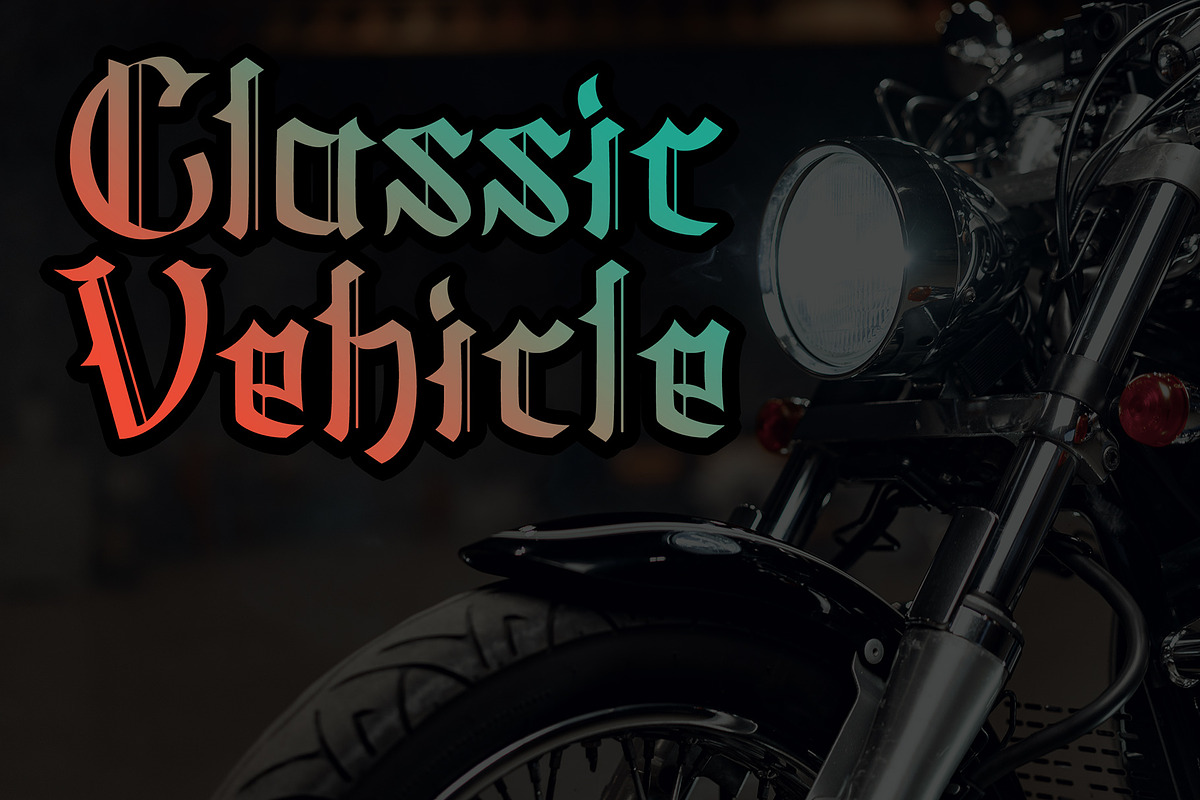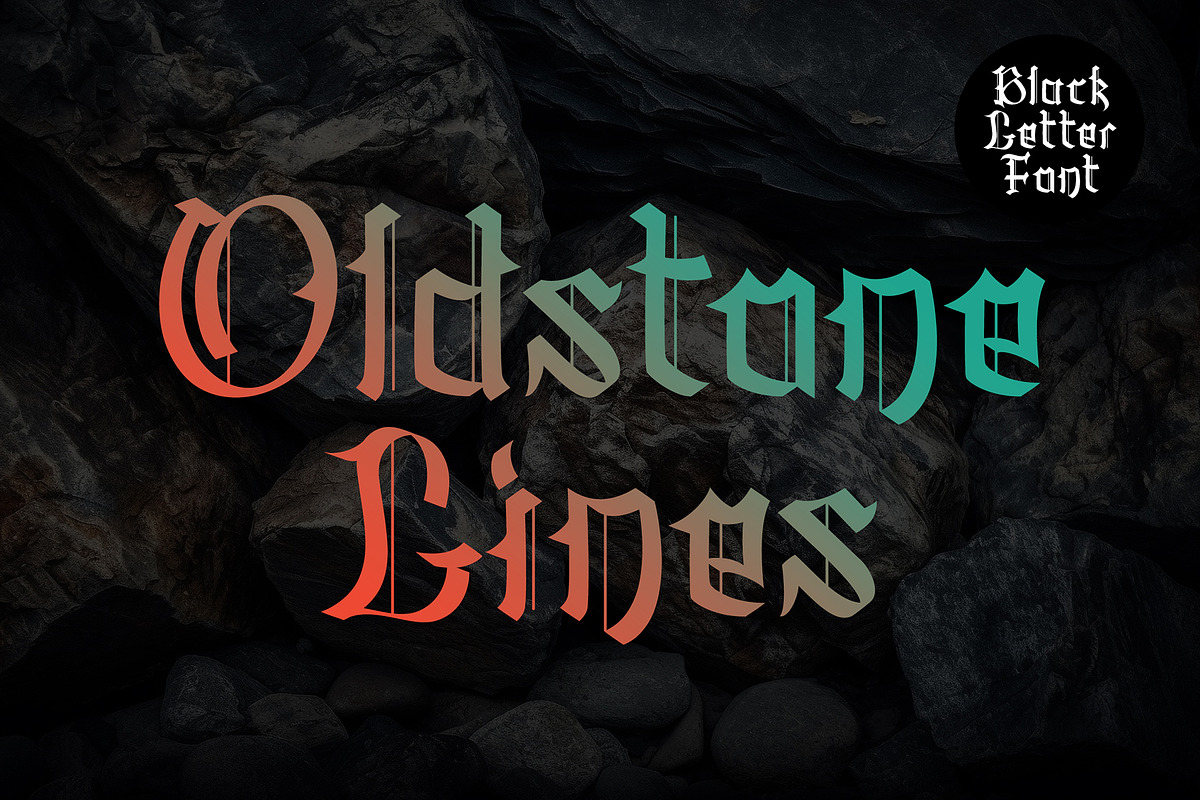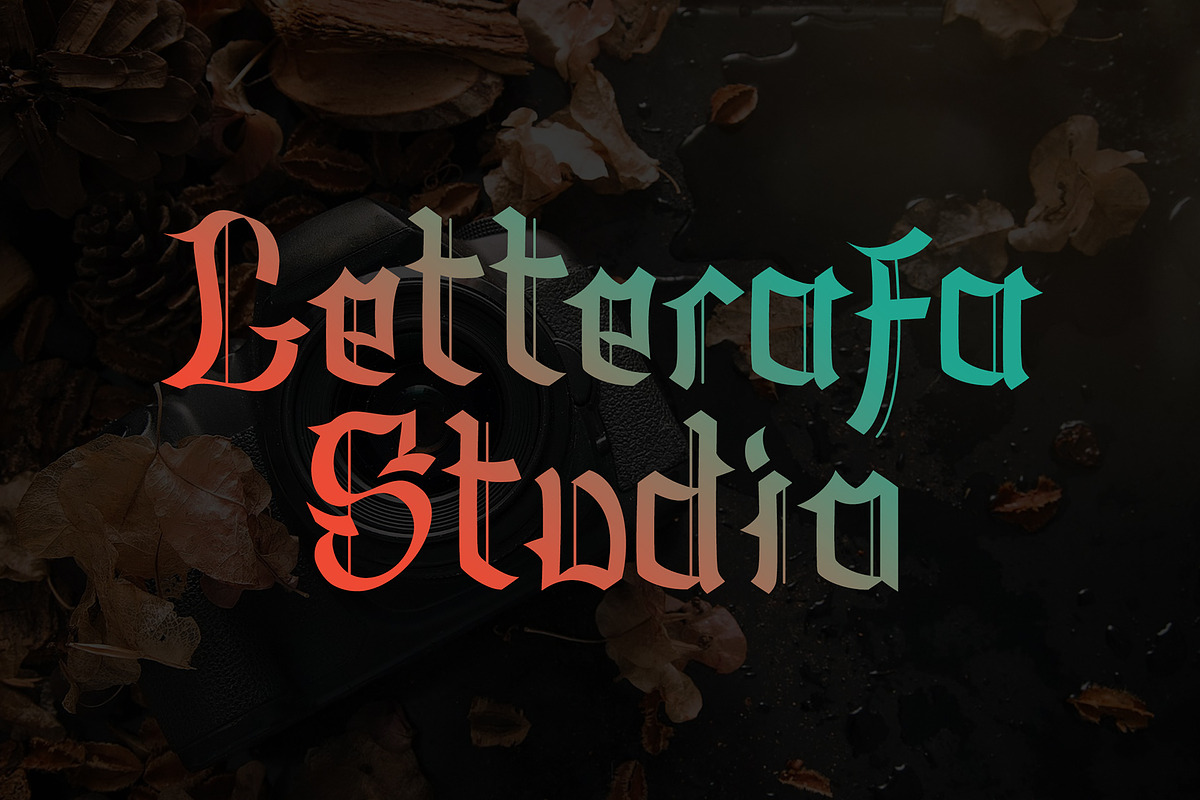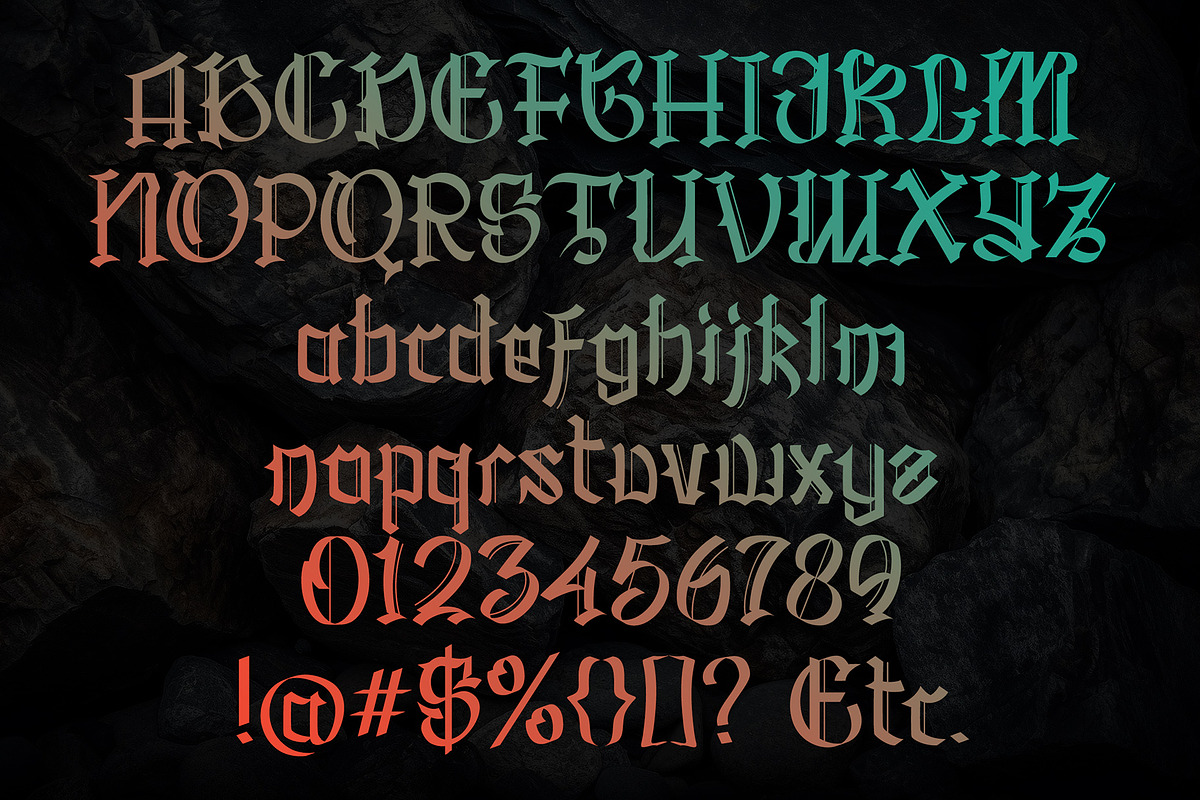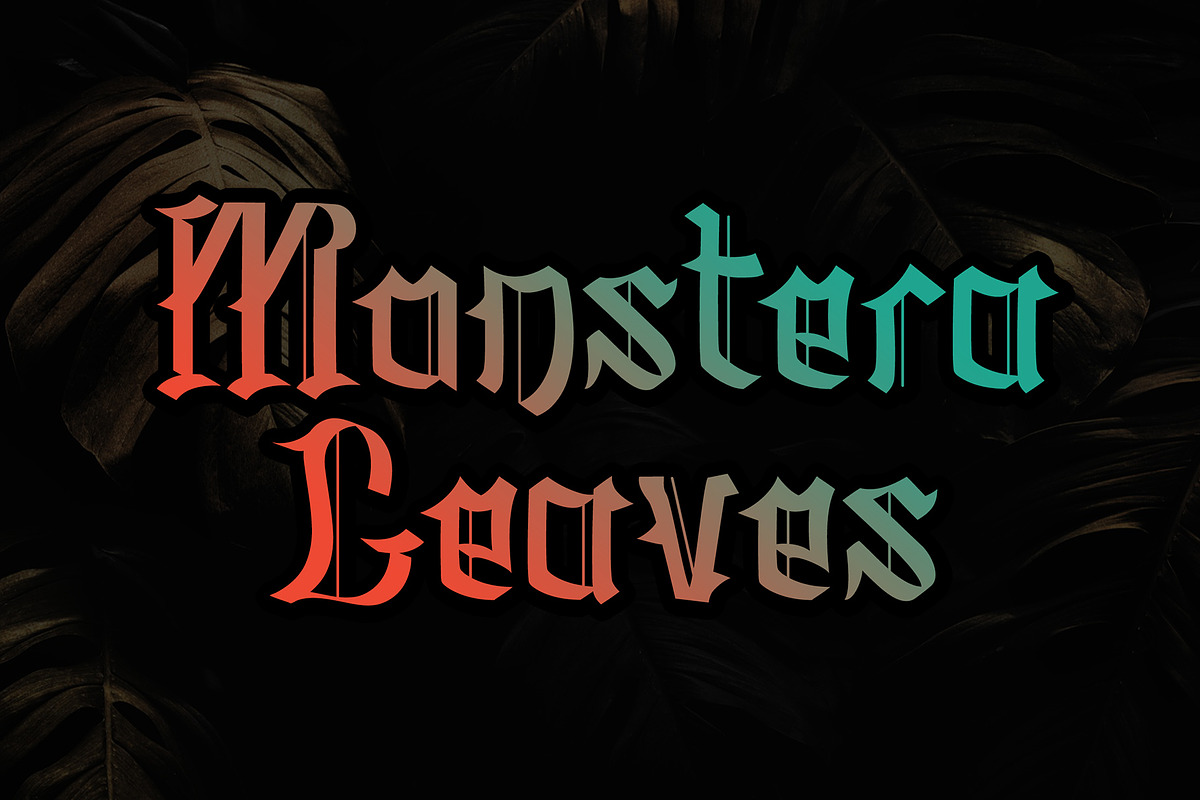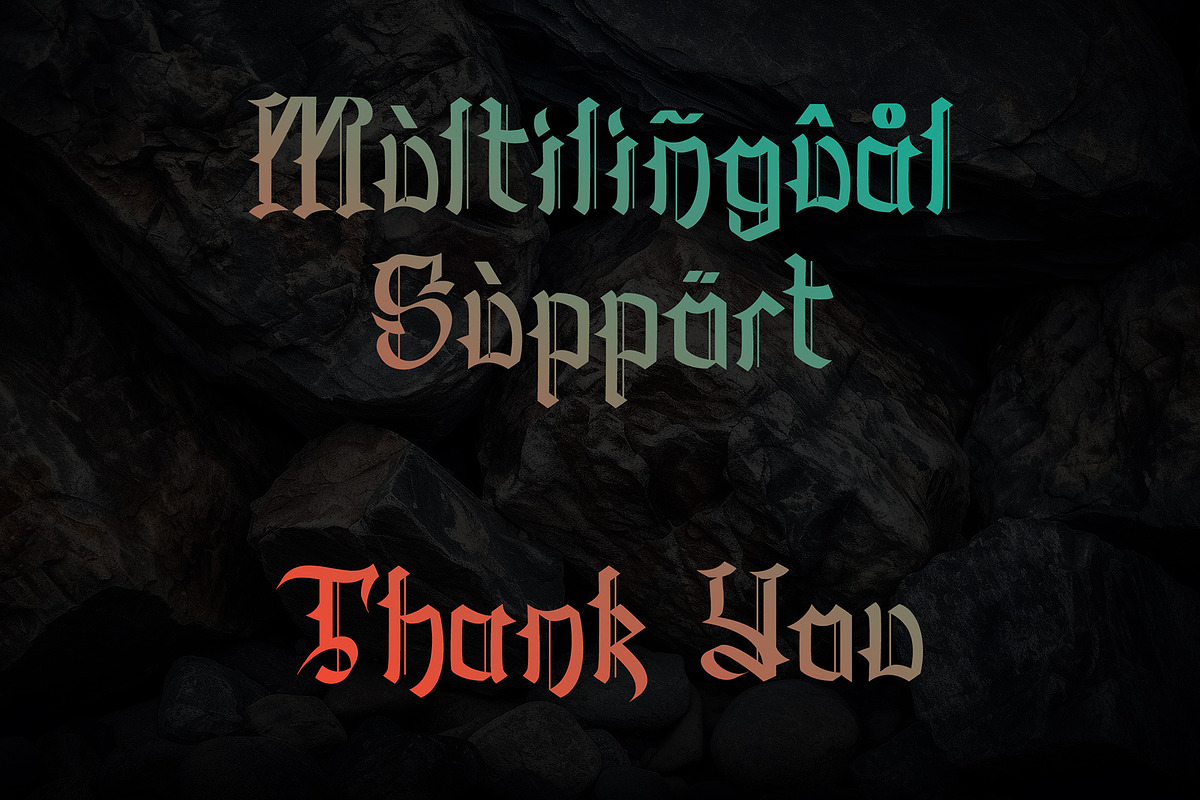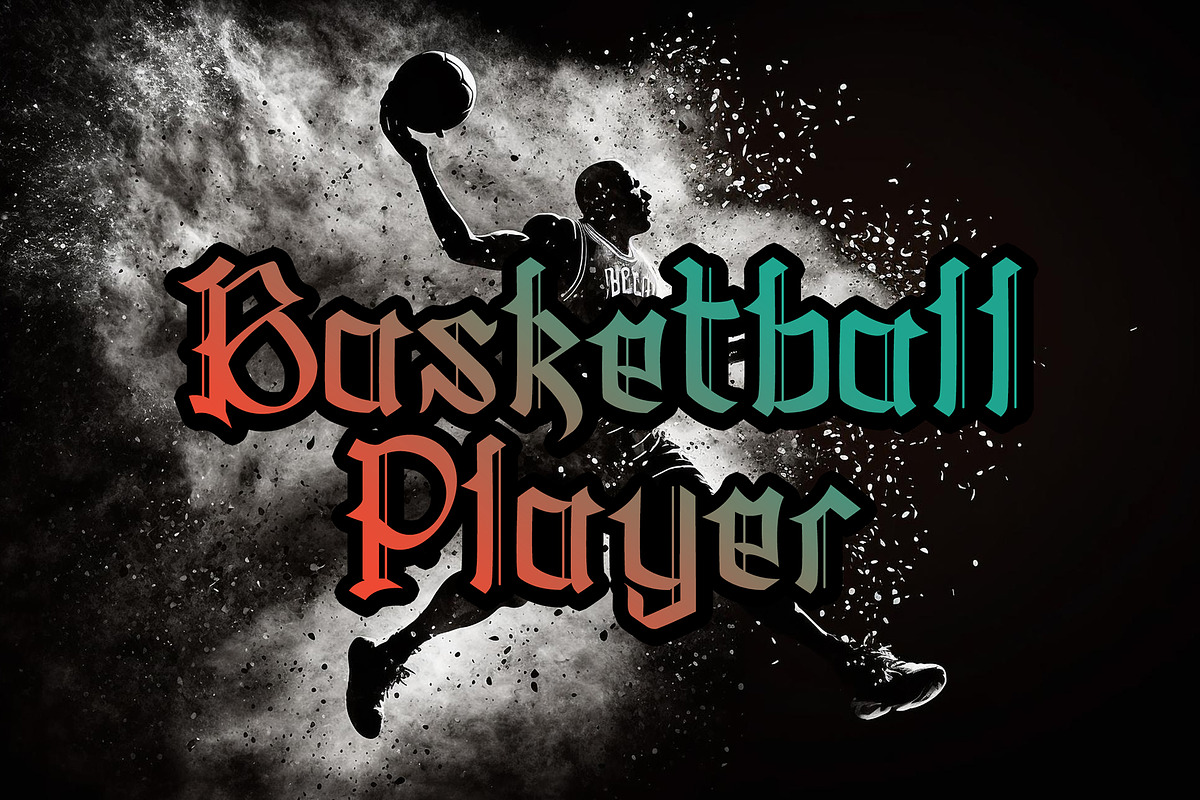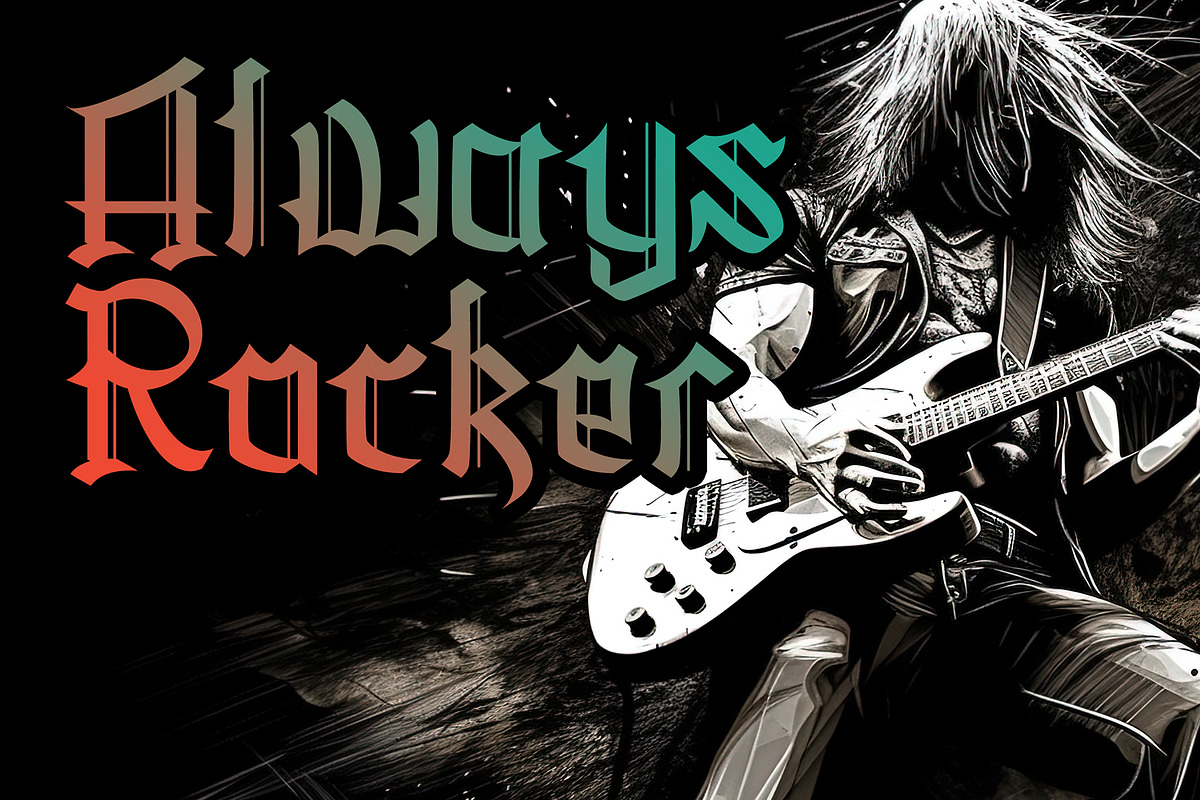
Oldstone Lines
Oldstone Lines is a bold Blackletter-style typeface that combines traditional gothic forms. Its sharp strokes, dramatic curves, and medieval-inspired letter structures create a powerful and distinguished visual presence. Designed for impactful titles, branding, posters, and thematic designs, this font delivers an expressive and historic atmosphere while maintaining strong readability. The gradient presentation adds a contemporary touch, making it suitable for both classic and modern creative projects.
- Support multilingual; ä ö ü Ä Ö Ü ß ¿ ¡